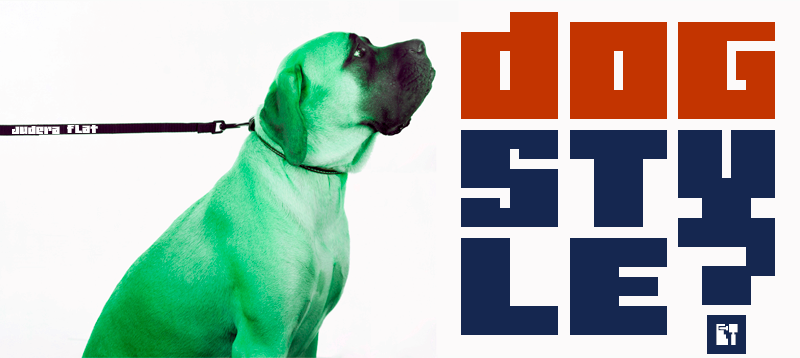
Judera is an unicase and monospaced experimental typography of subtractive geometric construction with no diagonals with two styles plus italics which have a 13� inclination. � Flat: font of straight lines with all angles at 90 � � Ring: Rounded in its external vertices with angles proportional to the constructive grid. ==================== FULL VERSIONS & COMMERCIAL LICENSES: https://defharo.com/fonts/judera-monospaced/ |